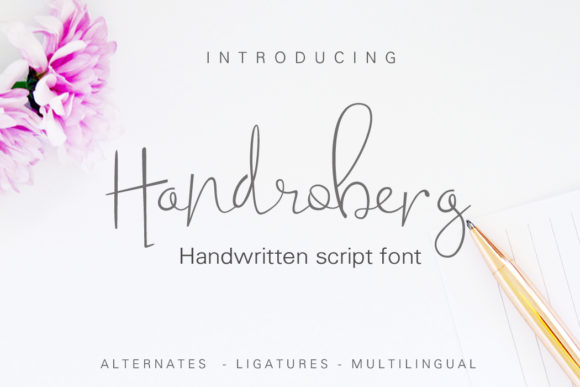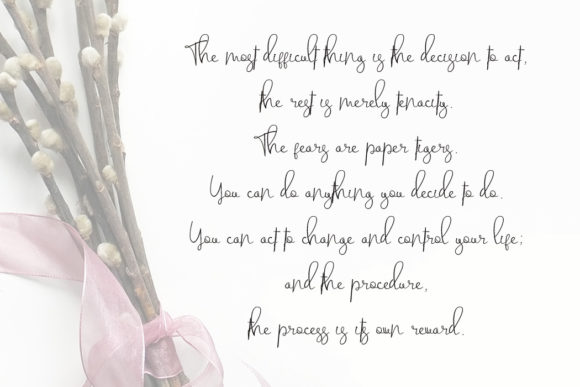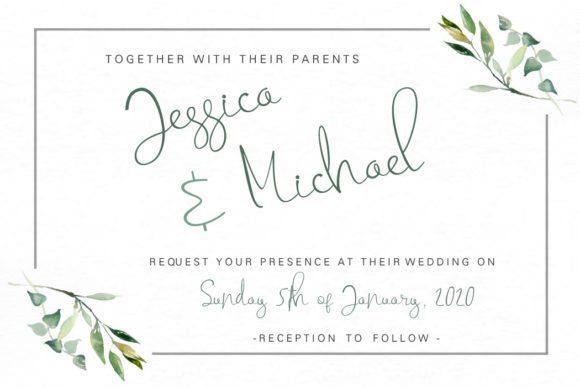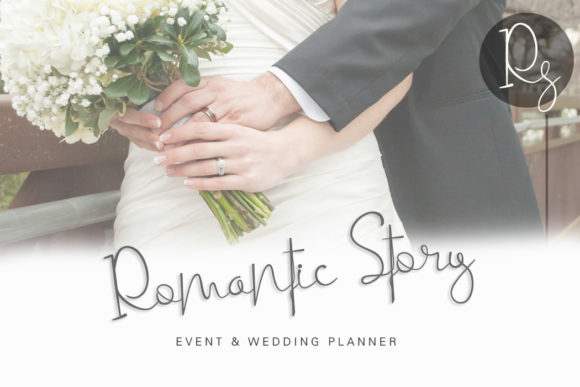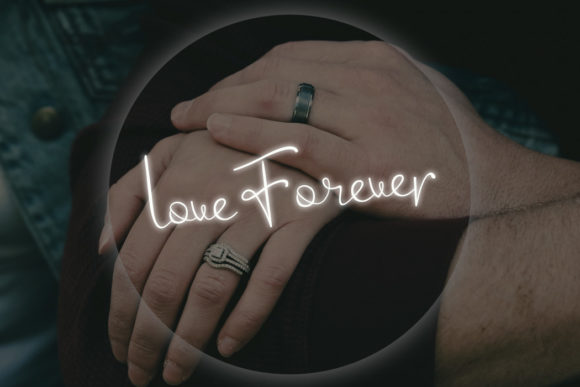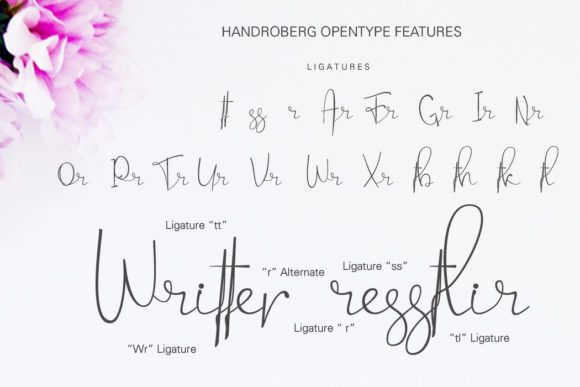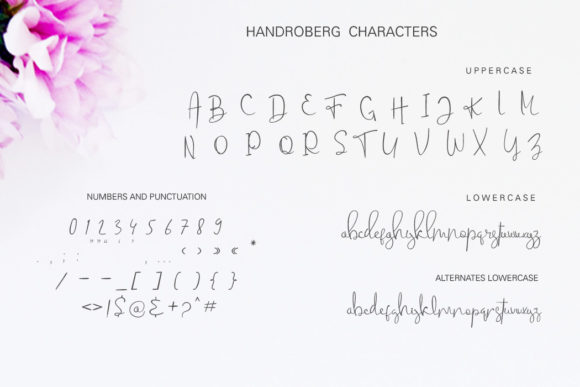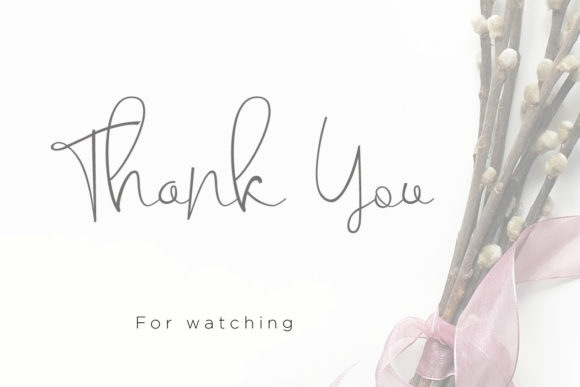
Handroberg Font
About Handroberg Font
Handroberg is a nice handwritten script font. Its variety of alternates and ligatures provide a range of choices that will help you find the best typographic color for your project.
Suitable for wedding invitations, greeting cards, quotes, headers, and much more!